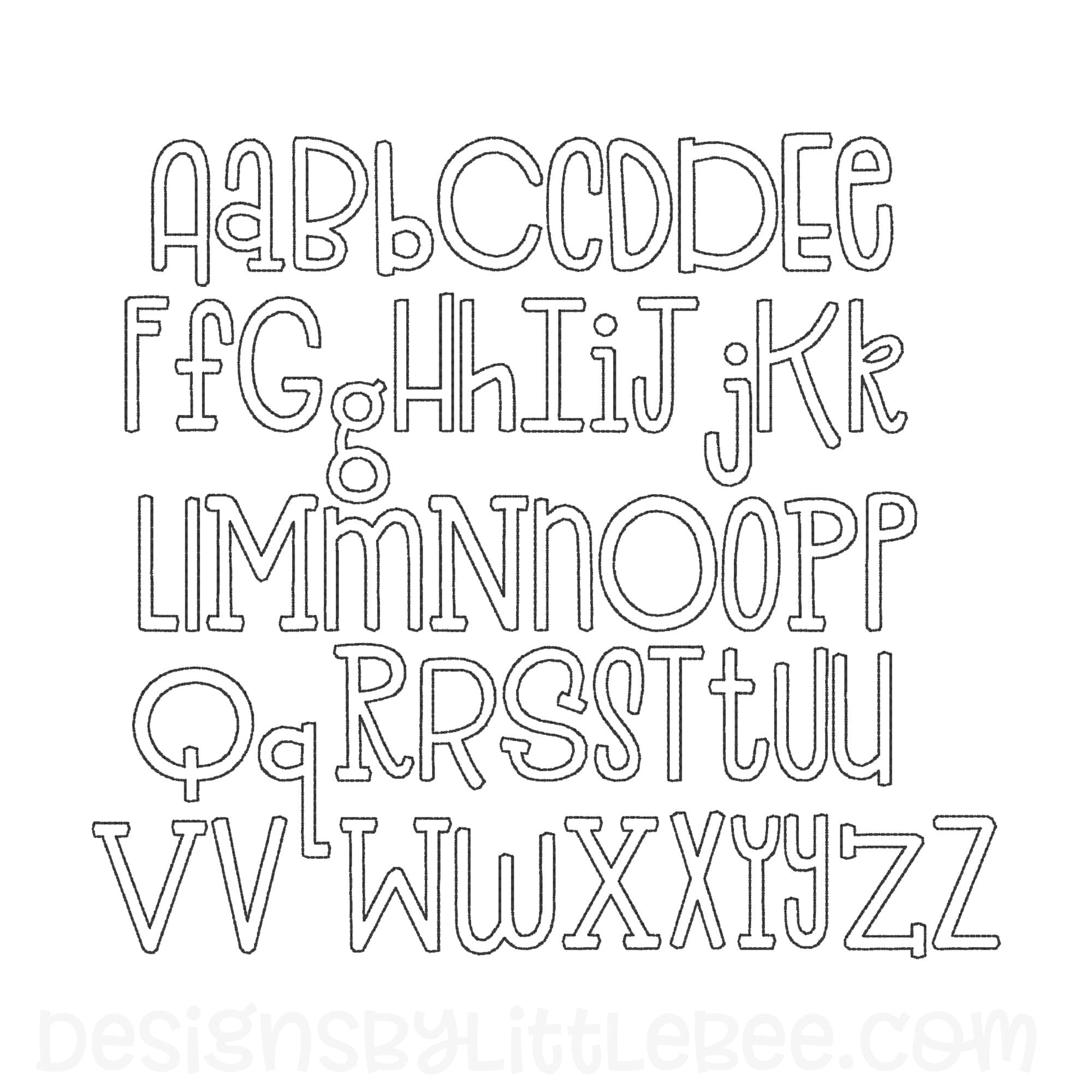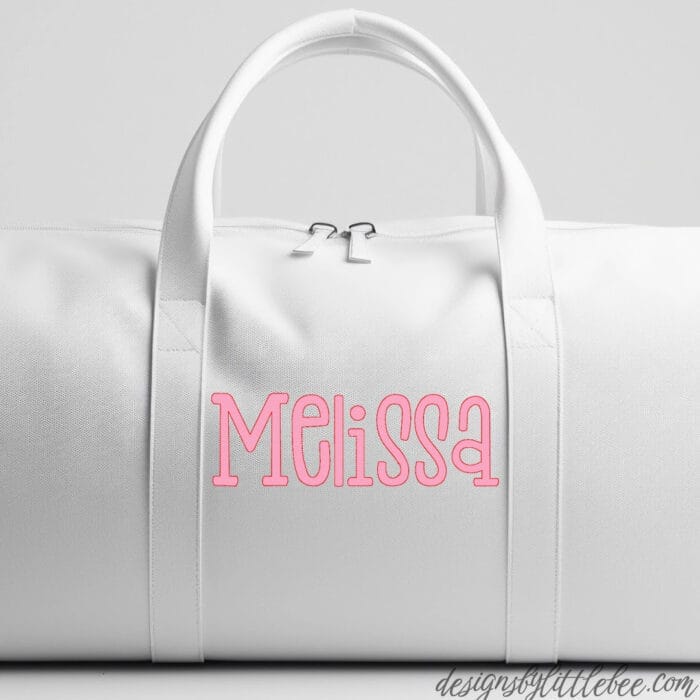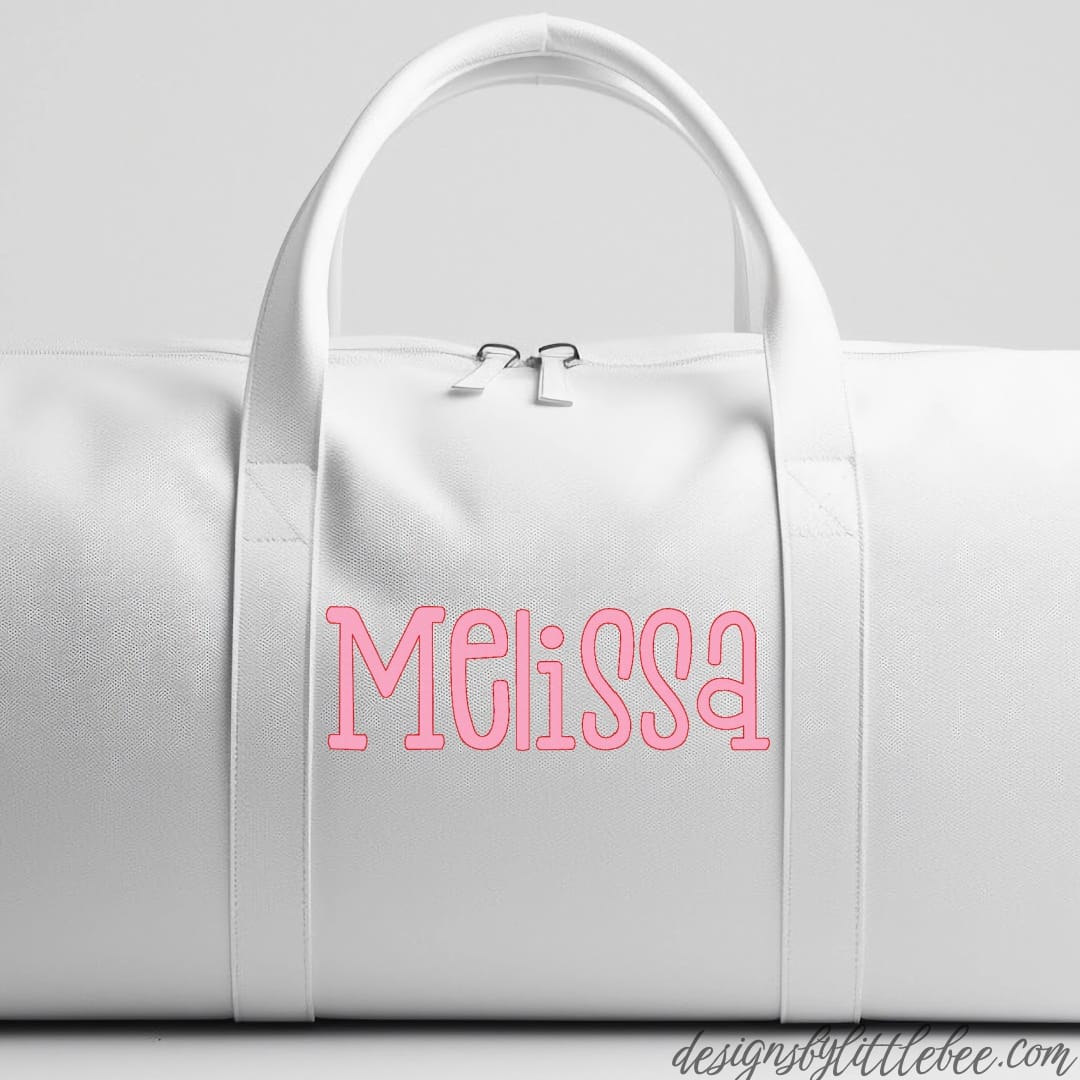
This is a native BX font that can be scaled “big as you want to go” (within reason) while retaining a quality stitchout. As an applique font, obviously smaller sizes will be harder to trim around the letters! At least 2″ tall is a recommended size.
Each character in this font consists of a single stitch, which serves as a placement, and a bean stitch, which will tack down a piece of fabric for a “raggy” applique look.